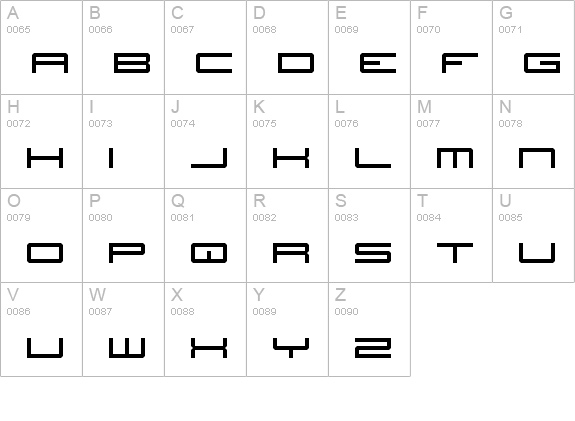
Introducing JH_TITLES Nominal font - the perfect blend of elegance and versatility. This incredible font offers a wide range of possibilities for all your design needs. With its clean and modern aesthetic, JH_TITLES Nominal font brings a touch of sophistication to any project. Featuring a sleek and minimalistic design, JH_TITLES Nominal font is ideal for branding, logo design, editorial work, and much more. Its unique combination of boldness and subtlety creates a powerful visual impact, making it perfect for headlines, titles, and attention-grabbing statements. But what makes JH_TITLES Nominal font truly exceptional is that it is freely available to download at FontsMarket.com. Yes, you read that right! You can get your hands on this remarkable font without spending a penny. This means that you can bring your creative visions to life without breaking the bank. Whether you're a professional designer or a creative enthusiast, JH_TITLES Nominal font is a must-have in your font collection. Its versatility allows you to use it in various design projects, ensuring that you always have the perfect typeface at your disposal. So don't miss out on this incredible opportunity to enhance your designs with JH_TITLES Nominal font. Head over to FontsMarket.com today and download this amazing font for free. Unleash your creativity and let JH_TITLES Nominal font take your designs to new heights.